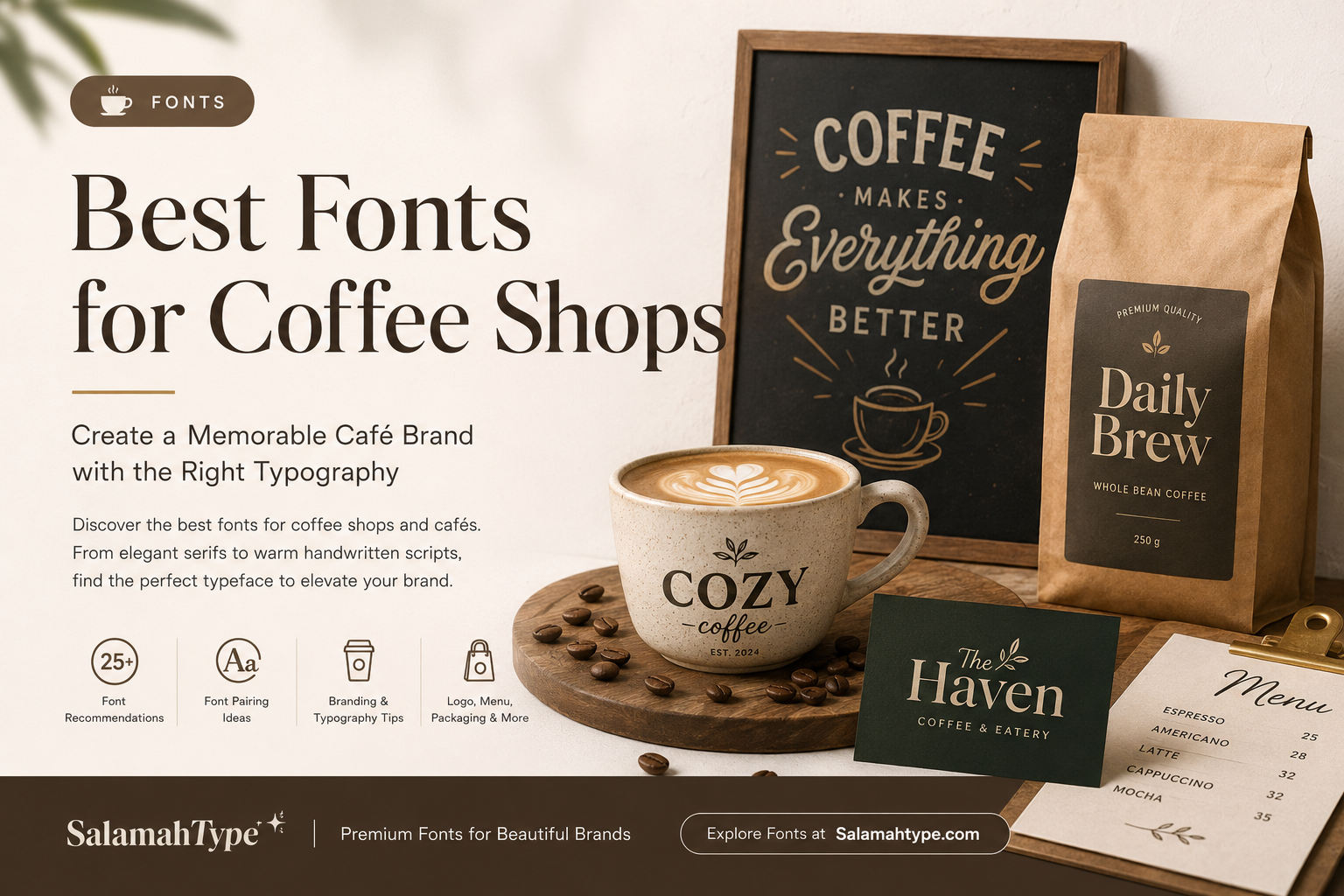
When customers walk past your coffee shop, your typography is often one of the first things they notice. From storefront signs and menus to coffee cups and packaging, the right font helps communicate your café’s personality and creates a lasting first impression.
Whether you’re opening a cozy neighborhood café, a specialty coffee roastery, or a modern espresso bar, choosing the perfect typeface can strengthen your branding and make your business stand out.
Coffee isn’t just about taste—it’s about experience.
Your font helps customers understand your brand before they even order their first cup.
A carefully chosen typeface can communicate:
Consistent typography also improves recognition across your logo, menus, social media, website, takeaway cups, coffee bags, and promotional materials.
A good café font should be:
Avoid overly decorative fonts for body text. Instead, reserve expressive fonts for headlines and logos while pairing them with a clean font for menus and longer content.
Elegant serif fonts are ideal for premium cafés and specialty coffee brands.
They create a sophisticated appearance while maintaining excellent readability.
Best for:
If you’re building a refined coffee brand, serif fonts instantly communicate quality and craftsmanship.
Vintage typography remains one of the most popular choices for coffee branding.
These fonts evoke nostalgia and handcrafted authenticity, making them perfect for cafés that want a timeless identity.
Perfect for:
Handwritten fonts create a warm and personal feeling.
They’re especially effective for cafés focused on homemade desserts, family-friendly environments, or artisan beverages.
Great for:
Modern cafés often choose minimalist sans serif fonts.
These fonts appear clean, contemporary, and highly readable.
Ideal for:
Creative coffee shops targeting younger audiences often use bold display fonts to create memorable branding.
Perfect for:
Using two complementary fonts usually produces the strongest branding.
Popular combinations include:
This combination creates visual hierarchy while keeping your designs easy to read.
Your typography should remain consistent across every customer touchpoint.
Use your chosen fonts on:
Consistent branding builds trust and makes your café easier to recognize.
Ask yourself:
Your font should reflect the atmosphere customers will experience.
Beautiful typography should never sacrifice clarity.
Customers should be able to read menus, signs, and labels effortlessly.
Most successful coffee brands use just two or three complementary fonts.
Too many font styles can make your branding feel inconsistent.
Choosing the best font for your coffee shop is an investment in your brand identity. The right typography can make your logo more memorable, improve customer recognition, and create a professional look across every marketing channel.
Whether you prefer elegant serif fonts, vintage lettering, handwritten scripts, or modern minimalist typefaces, selecting fonts that match your brand personality will help your café stand out in a competitive market.
Serif, vintage display, and handwritten fonts are among the most popular choices because they create warmth, authenticity, and strong brand recognition.
Two font families are usually enough—one for headings or logos and another for body text.
Yes. Serif fonts are an excellent choice for premium coffee brands because they convey elegance and craftsmanship.